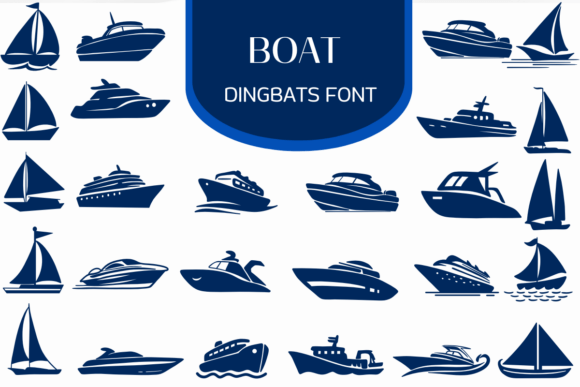
The Joy of Boat Font: A Designer’s New Best Friend
I’ll never forget the time I was working on a whimsical craft project, trying to find the perfect font to match the playful vibe of my design. I had a vision of cute, nautical-themed icons, but my font choices just weren’t cutting it. That’s when I stumbled upon Boat Font, a delightful dingbats font that instantly elevated my project from meh to mesmerizing. If you’re a fellow designer, crafter, or creative hobbyist, you’re in luck – today I’m excited to share my love for Boat Font with you! 🚣‍♀️
What I Love About Boat Font ✨
• Adorable nautical icons that add a touch of whimsy to any project ✅
• Easy to read and versatile, making it perfect for various design applications 📚
• Works beautifully in both digital and print formats 📊
• Cute and quirky, with a dash of personality 😊
• Some users may find the font a tad too playful for very formal or professional projects ⚠️
• Limited character set compared to more extensive dingbats fonts 📝
The Story Behind Boat Font 🌟
Boat Font was designed with the intention of bringing a touch of playfulness and whimsy to design projects. Inspired by the joys of sailing and the beauty of the ocean, the font’s creator aimed to craft a unique and versatile dingbats font that would delight designers and their audiences alike. Whether you’re working on a craft project, designing a logo, or simply looking for a fun font to add some personality to your work, Boat Font is sure to make a splash! 🌊
What type of projects is Boat Font best suited for? Boat Font is perfect for a wide range of projects, from craft and DIY designs to logos, branding, and digital content. Its playful and whimsical nature makes it ideal for projects that require a touch of personality.
Is Boat Font available in different weights or styles? Boat Font is a single-weight font, but its versatility and range of glyphs make it suitable for a variety of design applications. If you need multiple weights or styles, consider exploring similar fonts or alternatives.